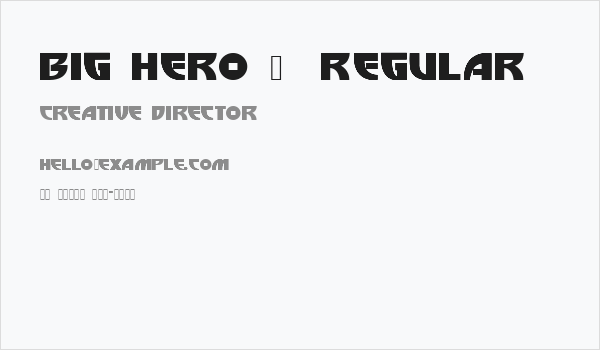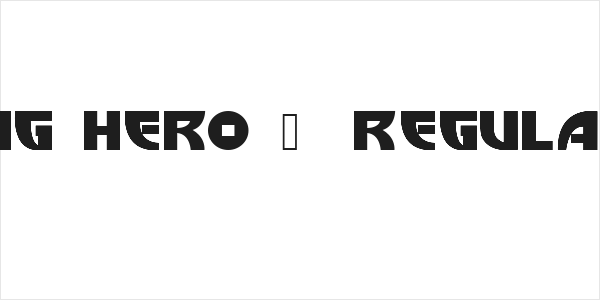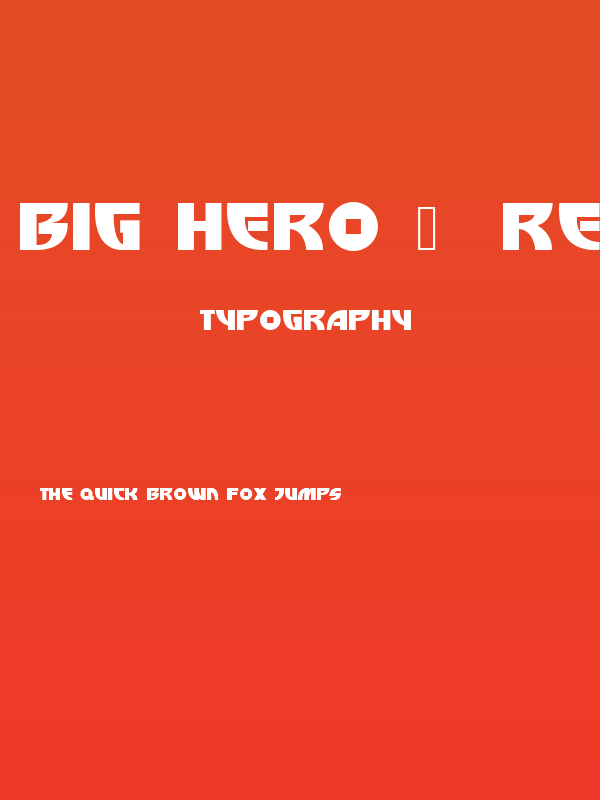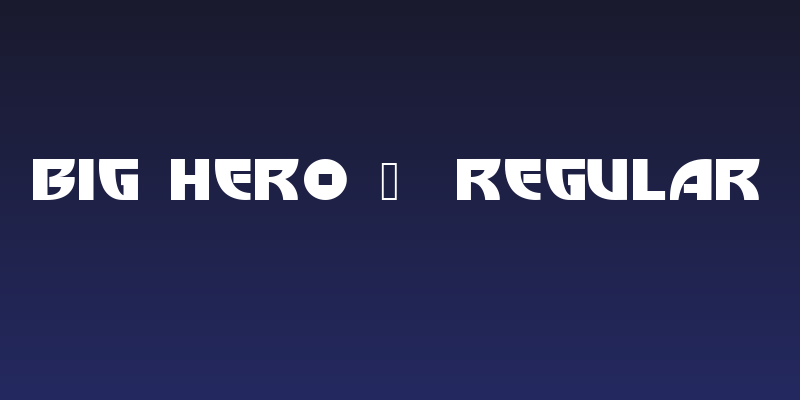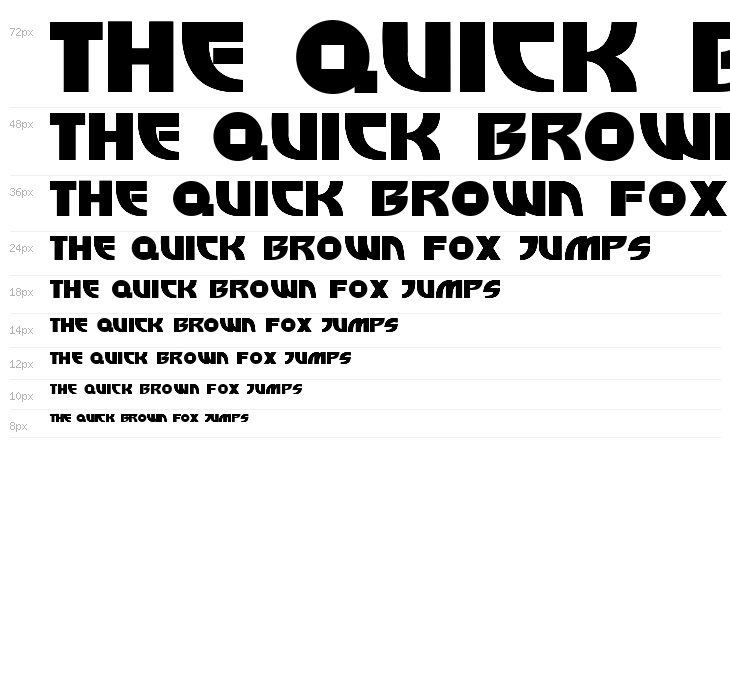
Big Hero 6 Regular Font
Big Hero 6 Regular Description
This font features a bold and futuristic design with a strong geometric influence. The characters are crafted with thick, uniform strokes and rounded edges, creating a sense of modernity and innovation. The uppercase letters exhibit a unique blend of curves and straight lines, while the lowercase letters maintain a consistent style that complements the overall aesthetic. The numbers and special characters are designed to match the boldness and style of the alphabet, ensuring a cohesive look across all text. This font is ideal for projects that require a strong visual impact and a contemporary feel.
| Proposed Projects | Ideal for technology branding, movie posters, video game titles, and futuristic-themed designs. |